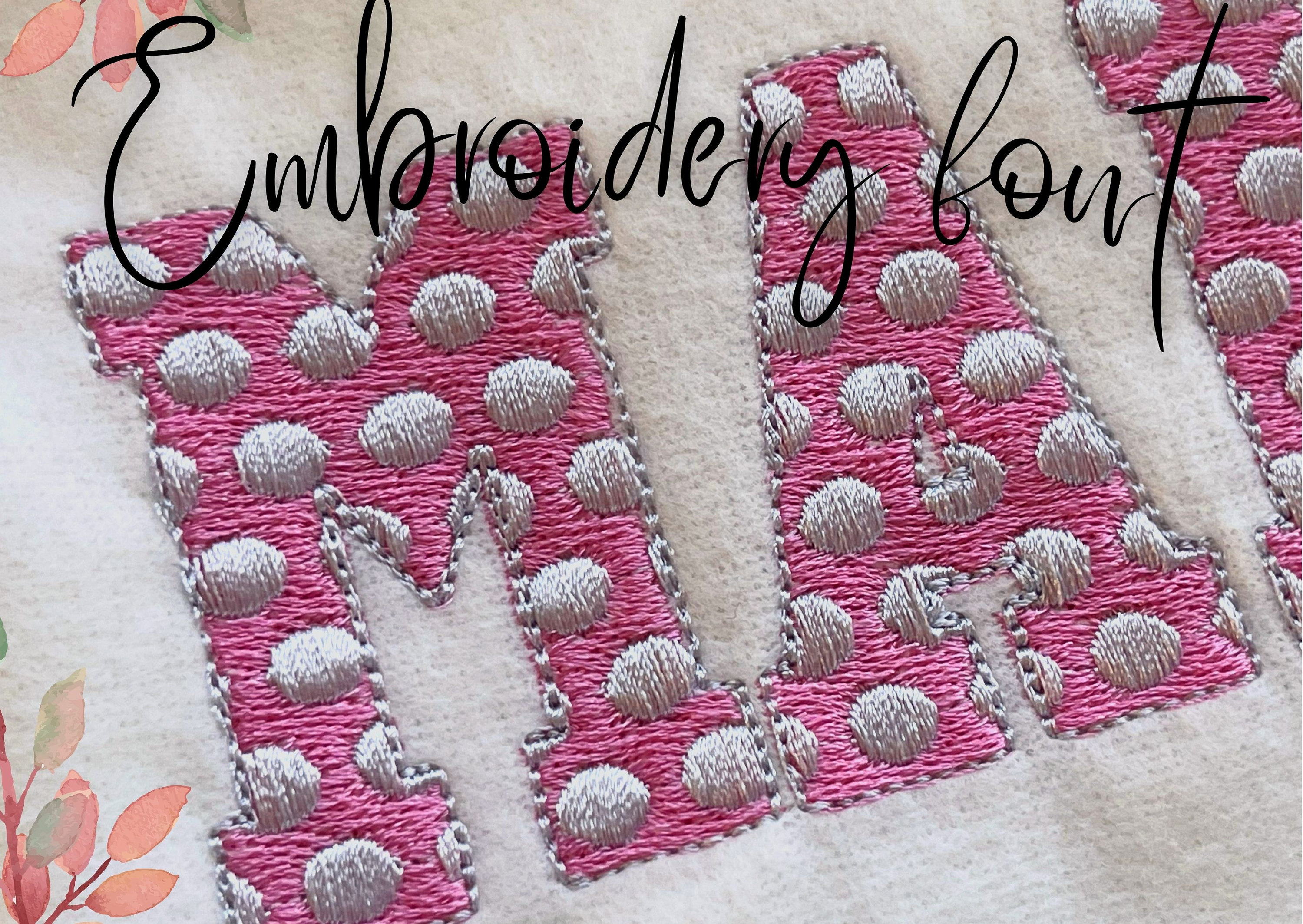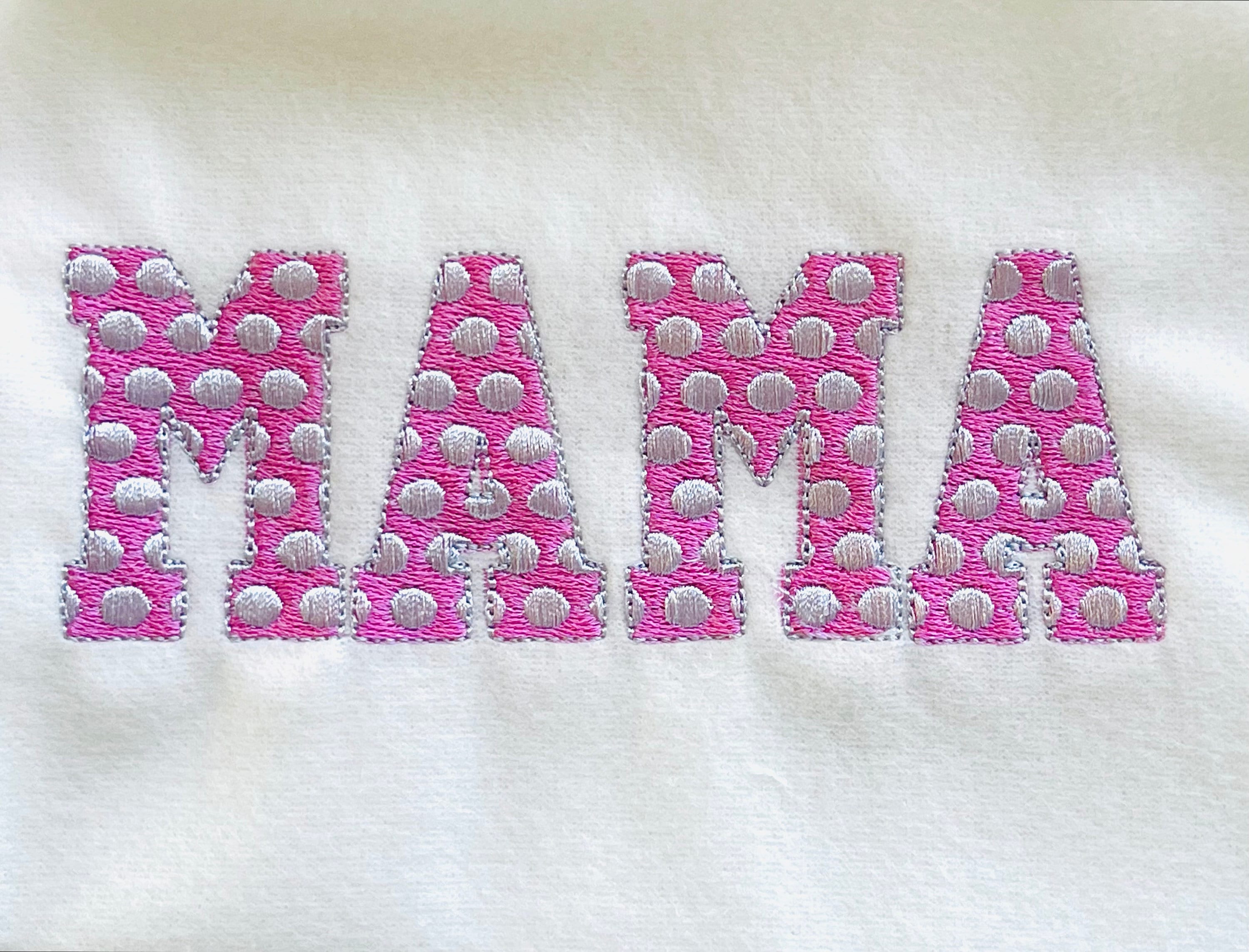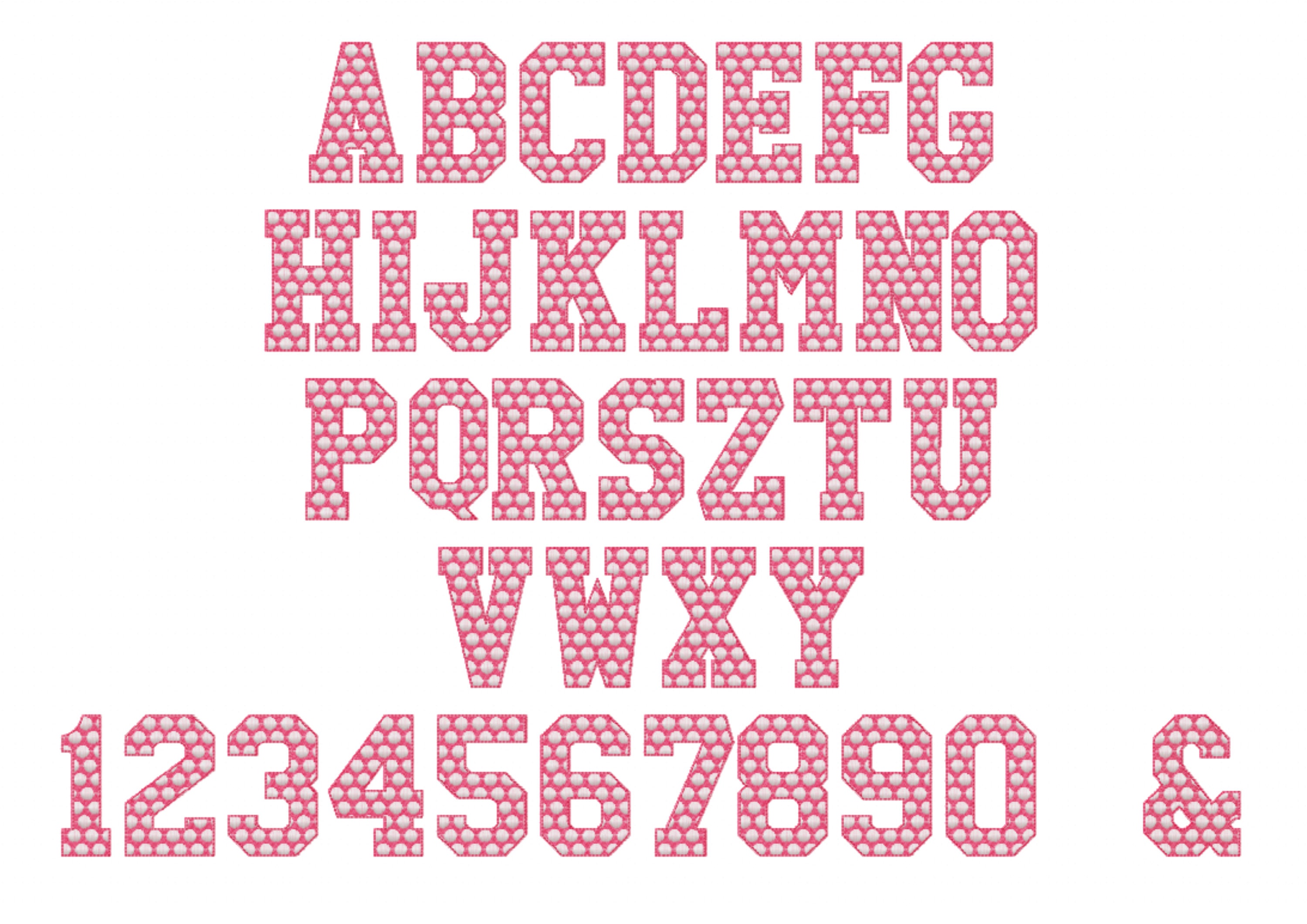
Polka dot Minnie mouse Font machine embroidery designs circles mini alphabet varsity speckle mottle best embroidery kids girl name monogram
Fill stitch design